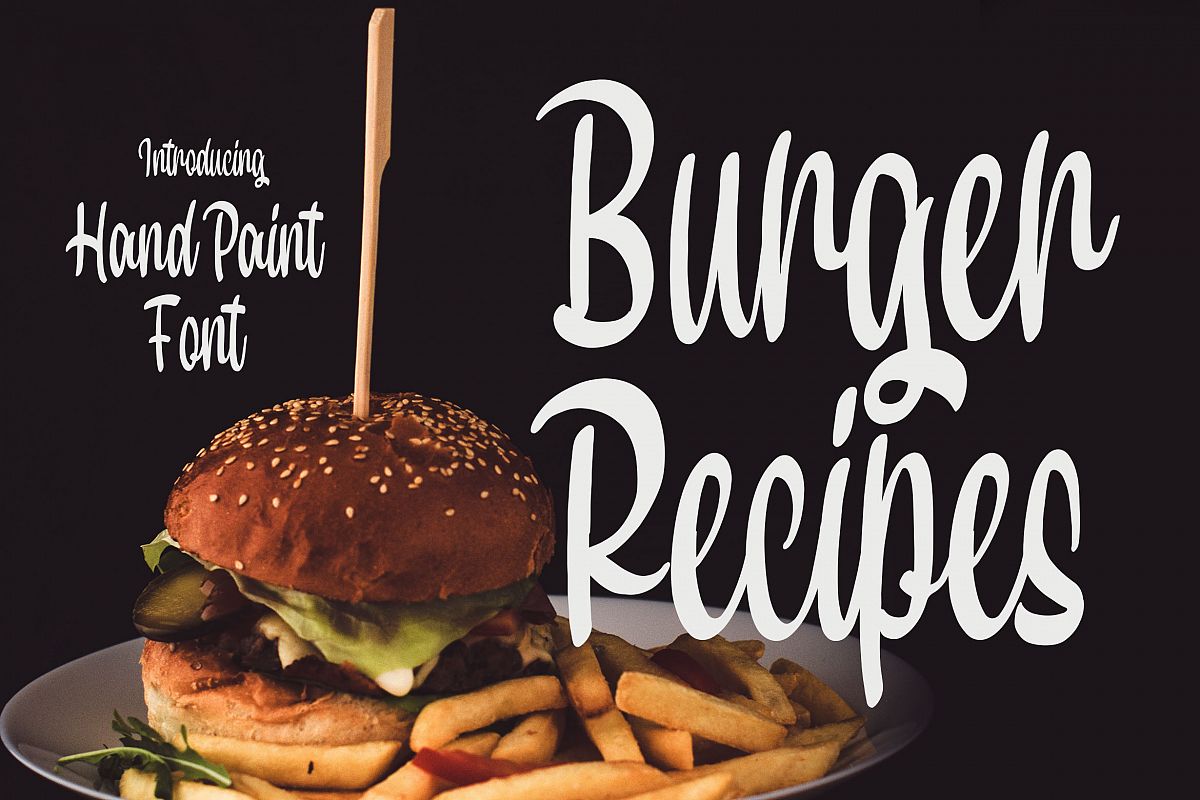
Introducing of our new product the name Hand Paint Old Fashion Script. Hand Paint made with markers into digital this font is a fun theme very good for signature, poster, branding, logotype etc
MULTILINGUAL ACCENT :
ŽžŠŒšŸÀÁÂÃÄÅÆÇÈÉÊËÌÍÎÏÐŁÑÒÓÔÕÖØÙÚÛÜÝßàáâãäåæçèéêëìíîïłñòóôõöøùúûüýÿ
* Uppercase
* Lowercase
* Number
* Punctuation
* Multilingual
* PUA Encode
* Opentype